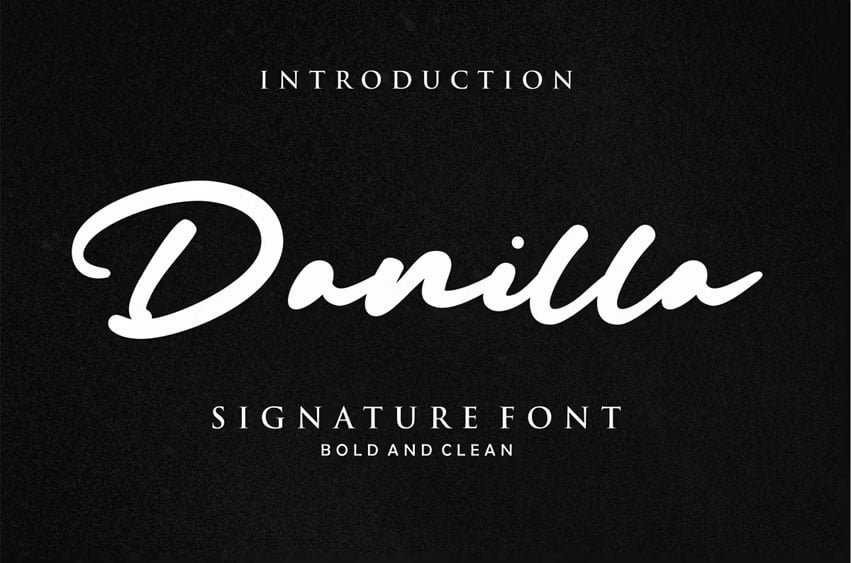
Danilla Font Discover a one-of-a-kind signature font that will set your designs apart from the rest! Introducing our unique signature font for sale, crafted with meticulous attention to detail to ensure an unparalleled sense of elegance and sophistication.
Embrace the power of personalization with this distinctive signature font, adding a touch of authenticity and individuality to your projects. Ideal for logos, branding materials, invitations, social media graphics, and so much more, this font will elevate your designs and leave a lasting impression on your audience.